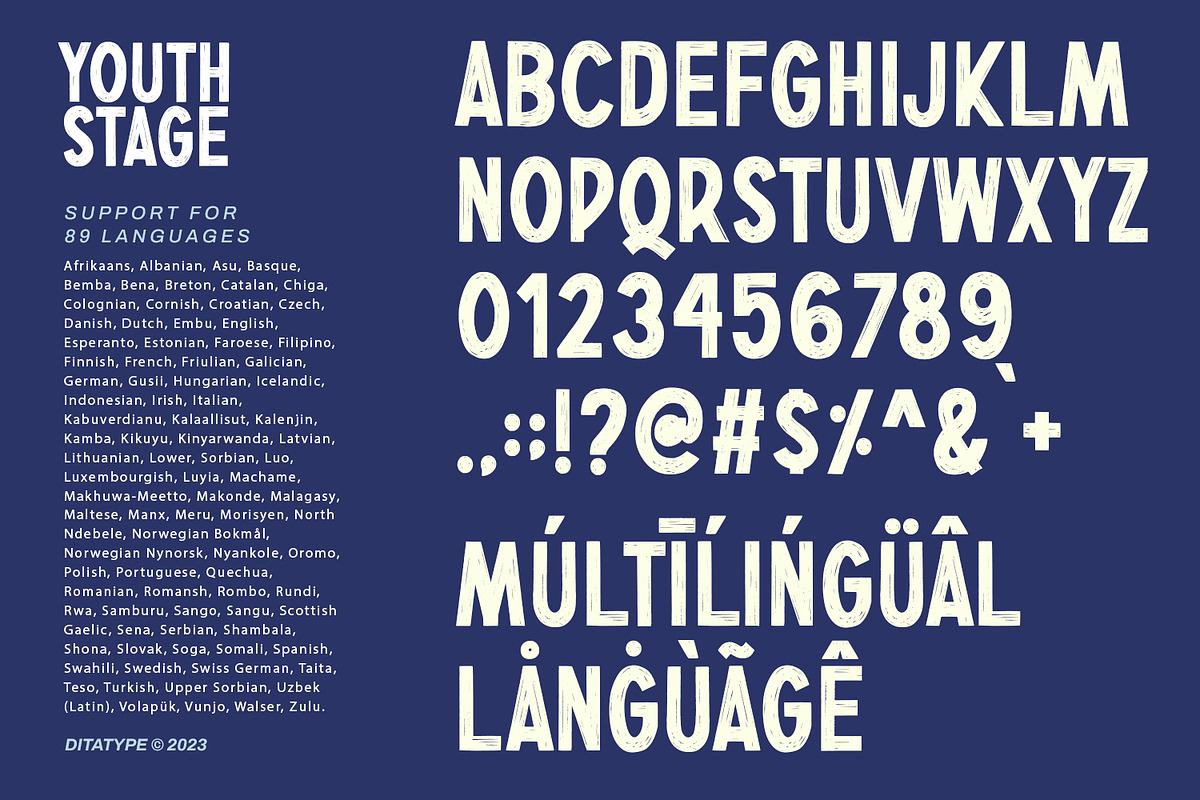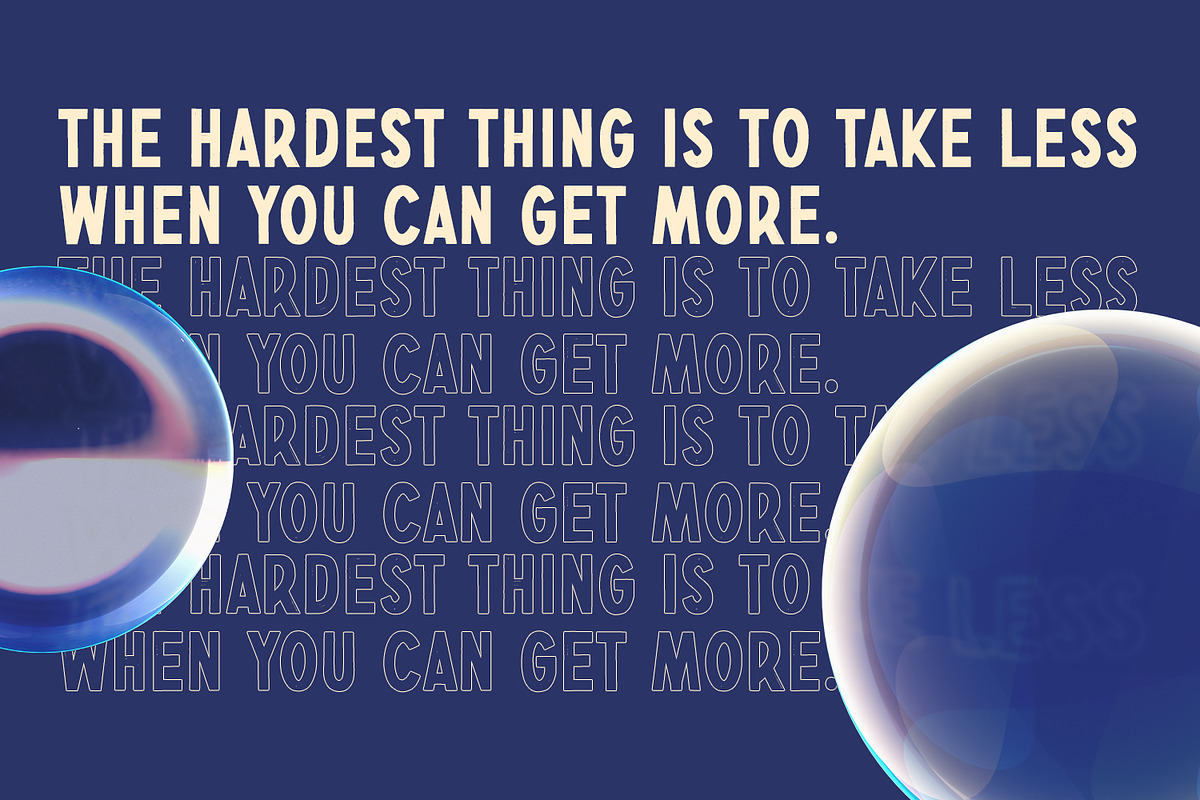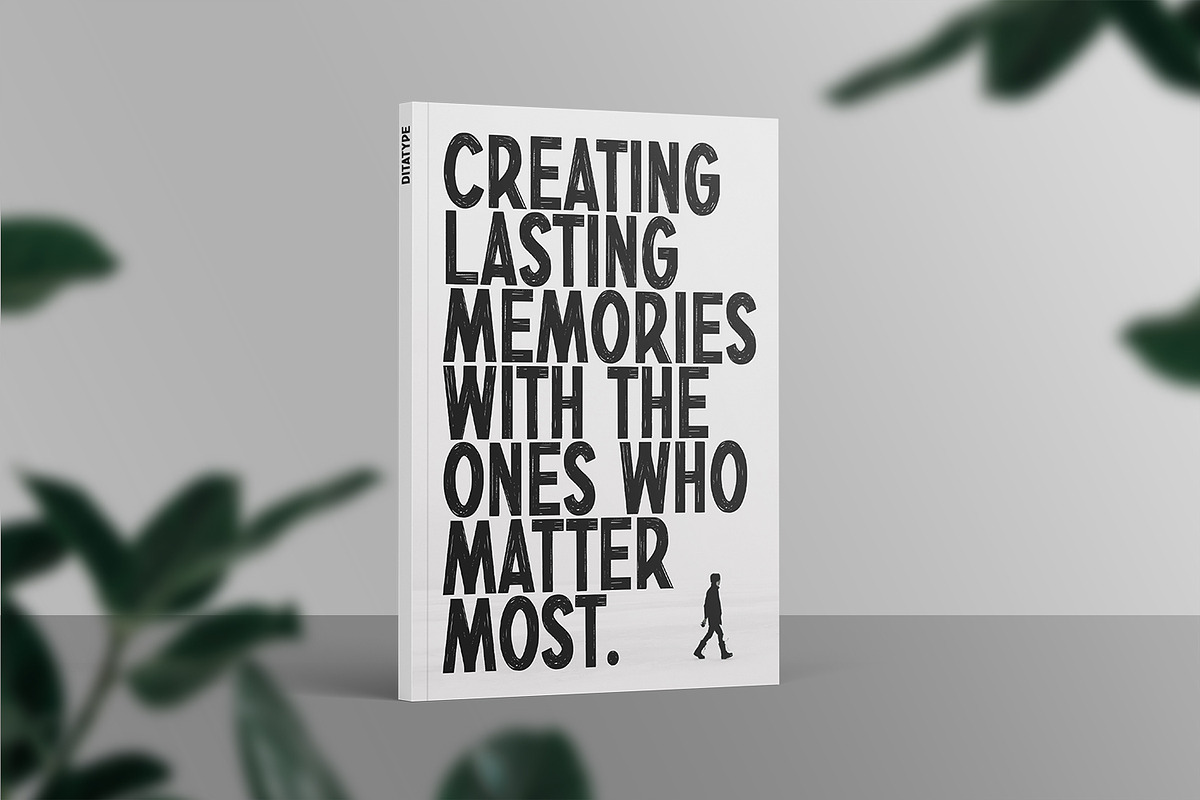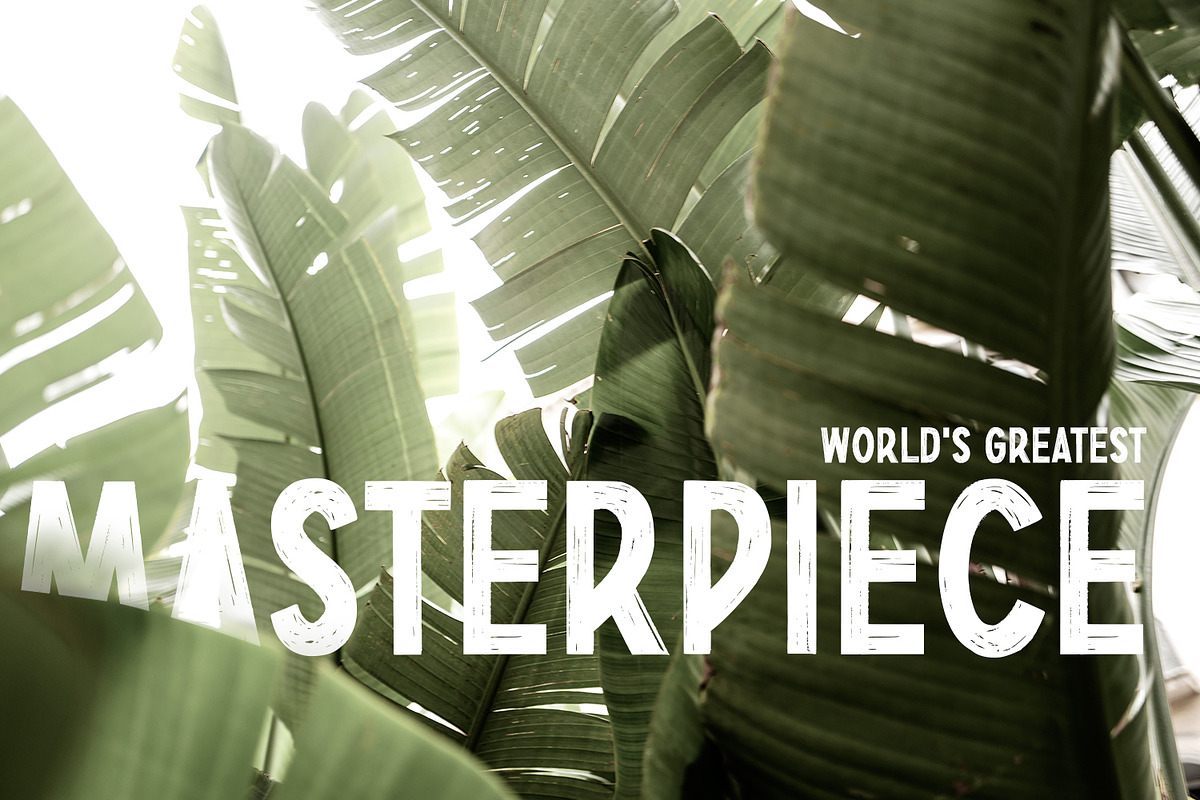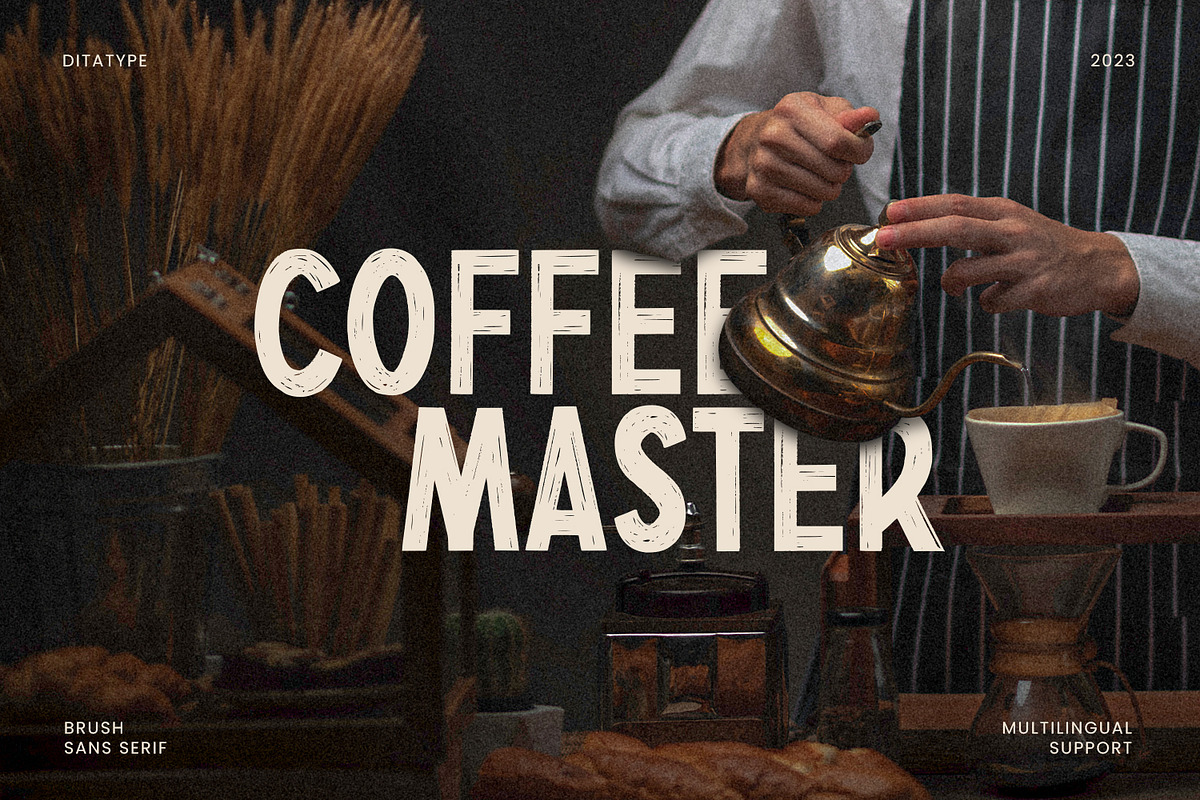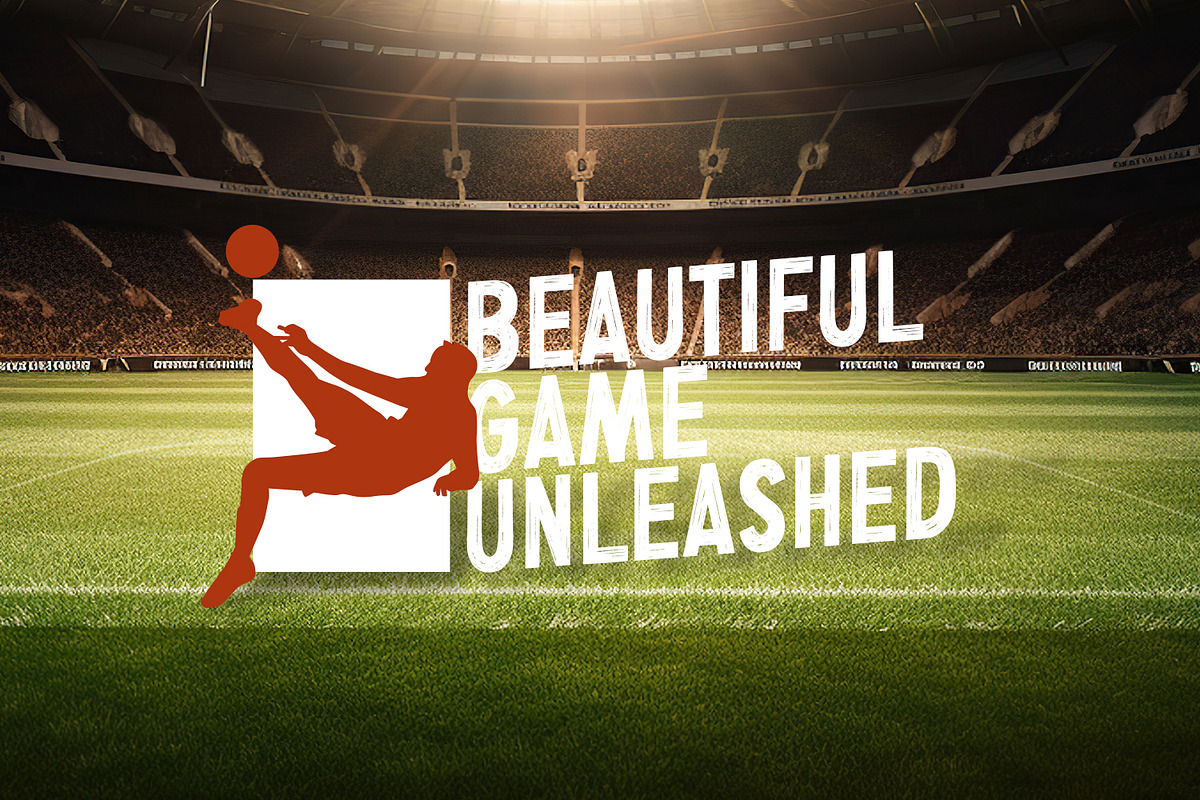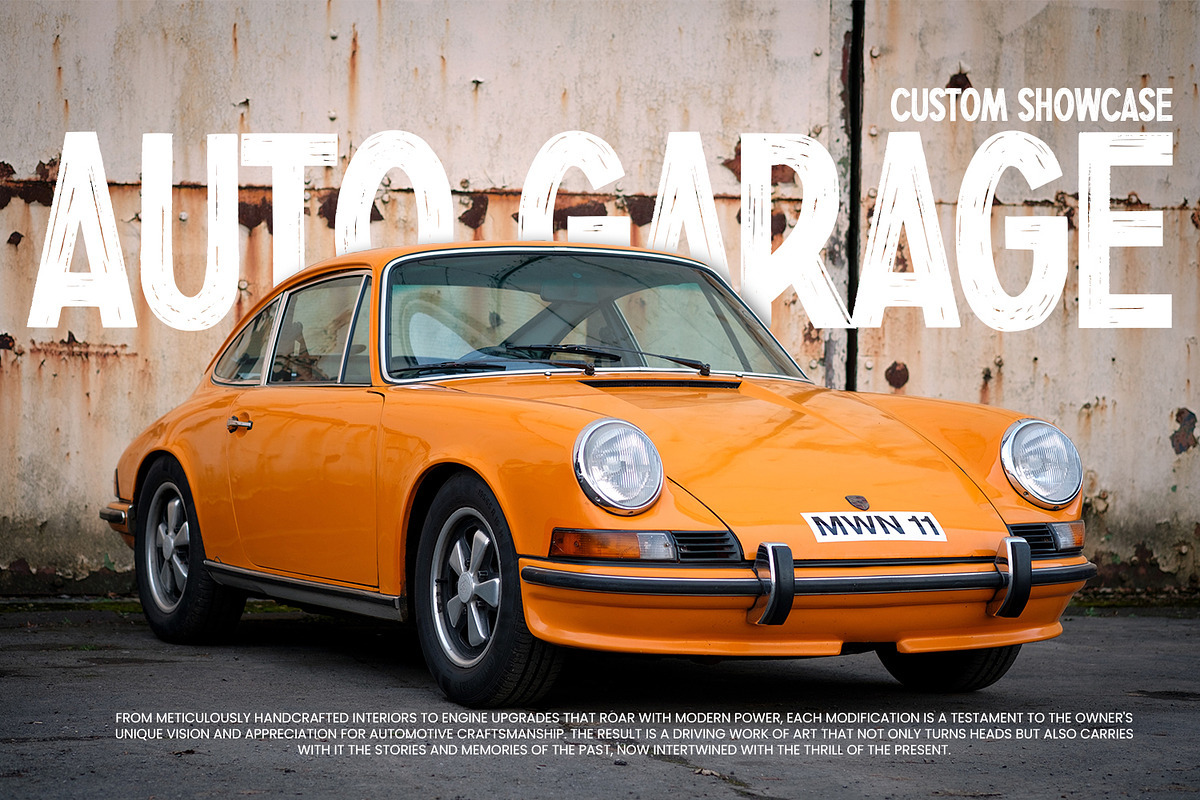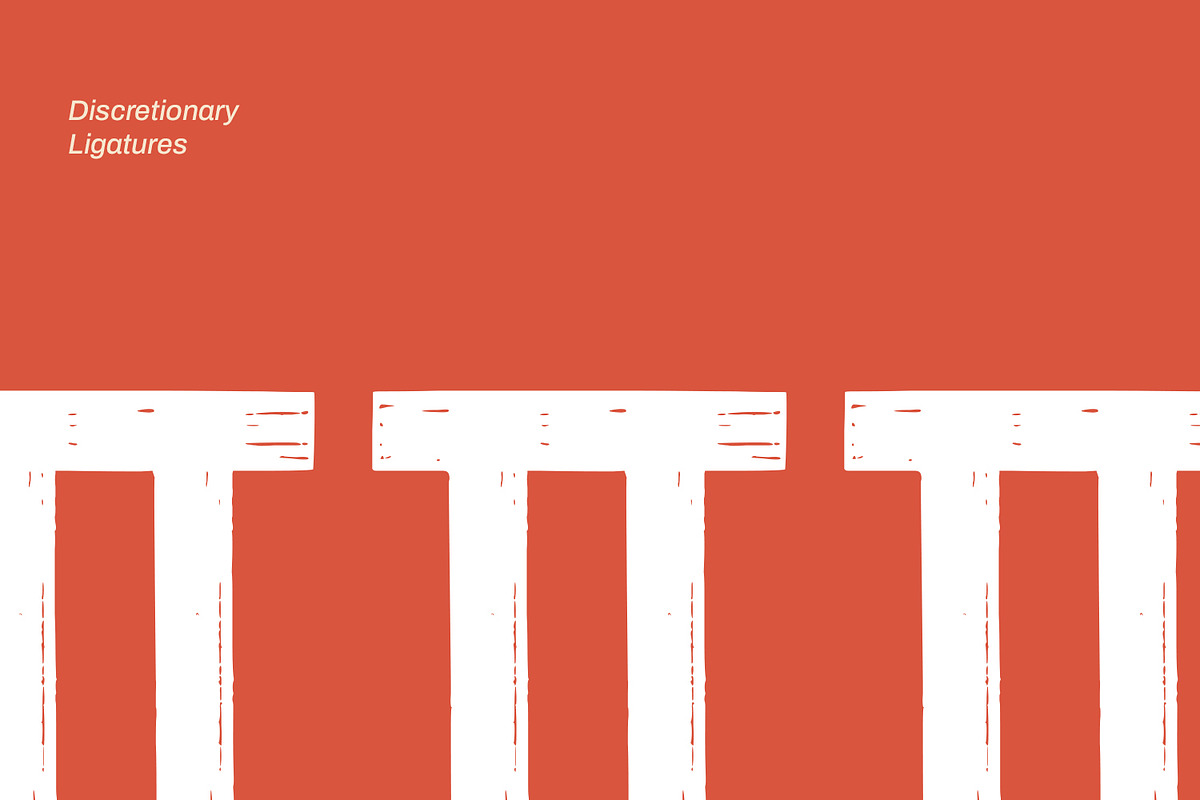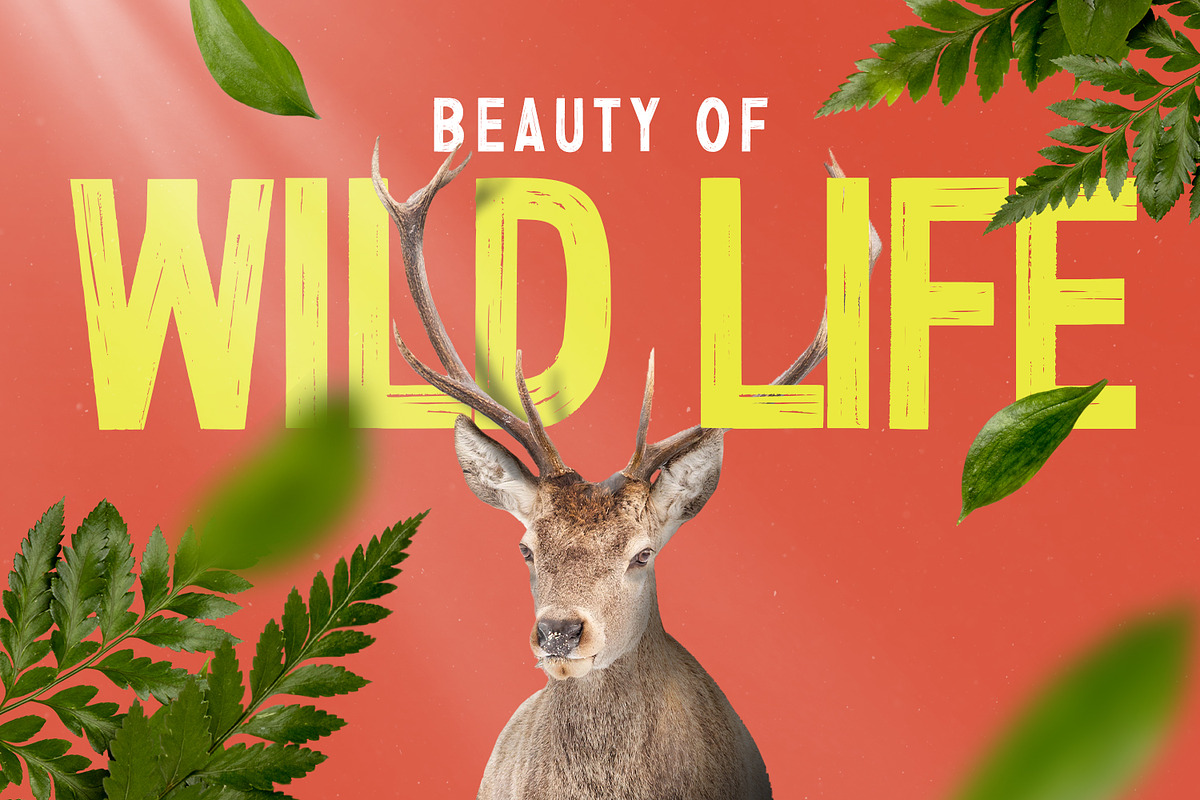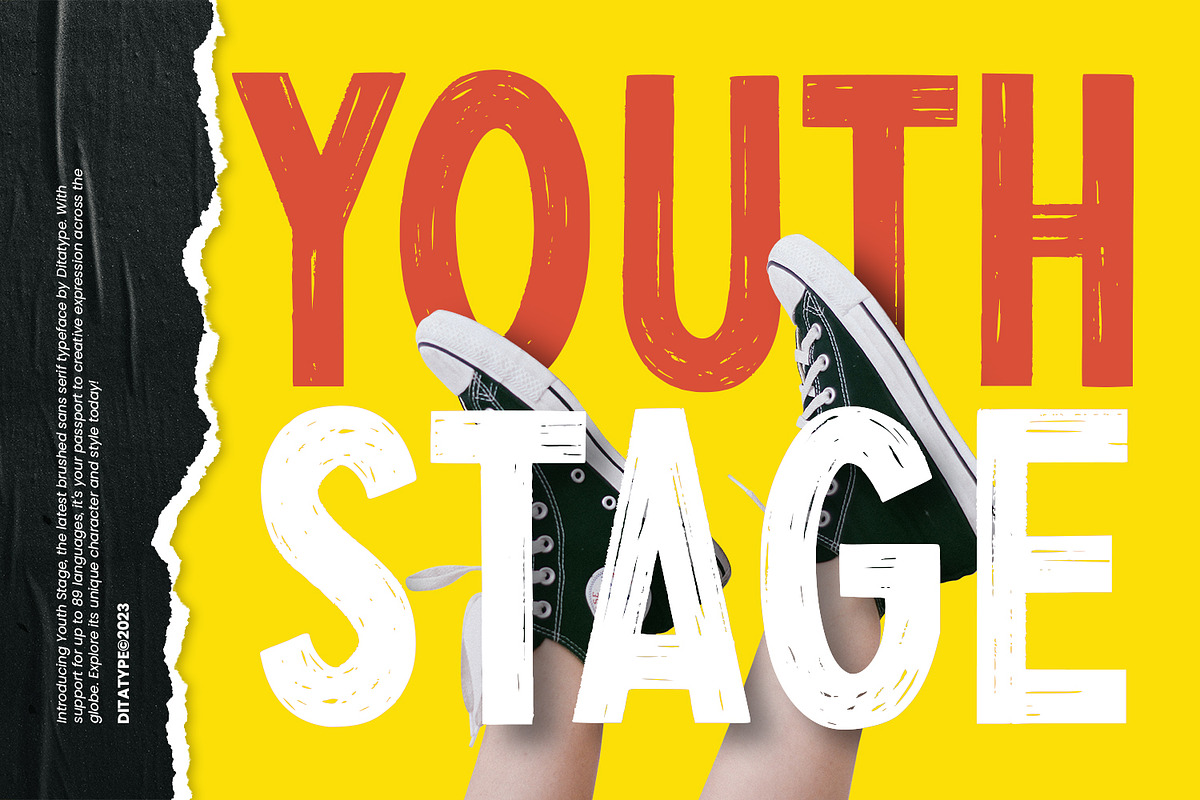
Youth Stage
Youth Stage is a vibrant brush sans serif font designed in all caps with a fairly thick weight. This font captures the energetic essence of hand-drawn brush strokes while maintaining the clean lines of a sans serif design. Its combination of boldness and brush texture adds a youthful and artistic flair to any project, ensuring your message is both powerful and lively. In addition, enjoy the features here.
Youth Stage fits in headlines, logos, posters, flyers, branding materials, print media, editorial layouts, and many more designs. Find out more ways to use this font by taking a look at the font preview.